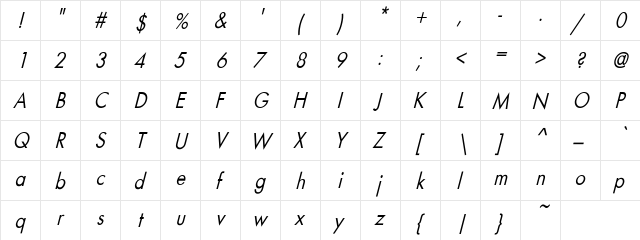
FuturaCndObl-No Regular
Design Context for FuturaCndObl-No Typeface
FuturaCndObl-No has a distinctly futuristic character, with geometric precision and clean angles that feel at home in technology, gaming, and sci-fi contexts.